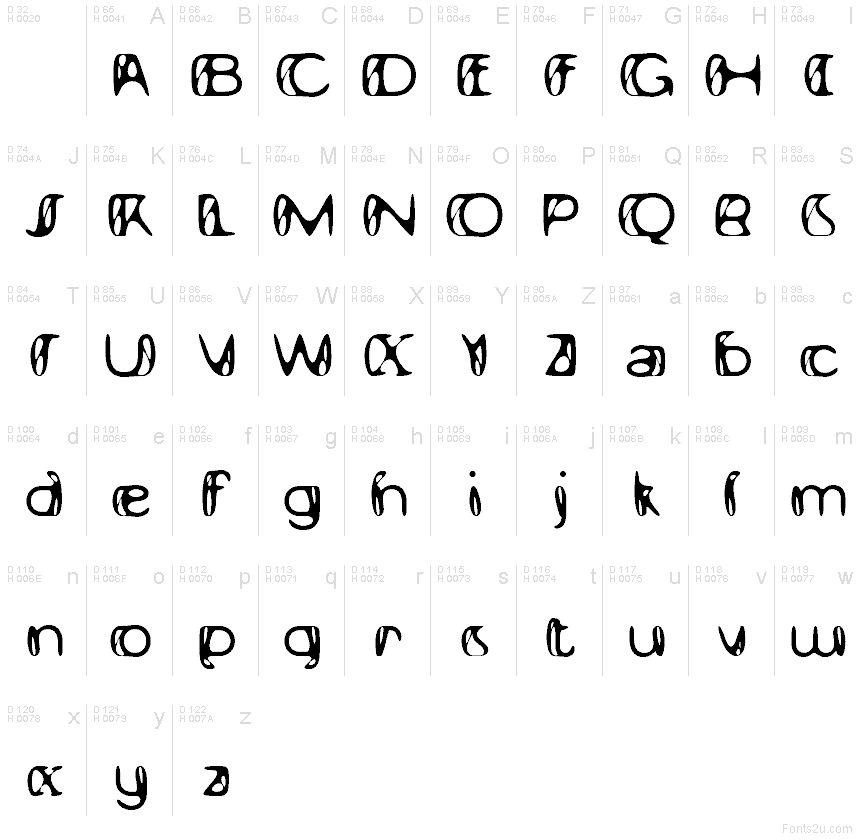
CS Locked Drawn font by Craft Supply Co. is a free hand-drawn decorative display font that leans into inky, vine-like strokes and high-contrast curves. Part of the CS Locked family, it twists between thick, glossy swells and hairline flicks, with leafish terminals that feel organic yet deliberate. The rhythm is irregular in a controlled way, giving headlines a tactile, sketched energy without turning messy.
Using CS Locked Drawn, titles snap to attention on artisan packaging, botanical branding, mystical posters, boutique labels, festival merch, café menus, and album covers. This free font thrives large, where its tendrils and negative space can breathe. Pair it with a clean geometric sans to steady the texture, and keep generous tracking for an elegant, art nouveau glow.